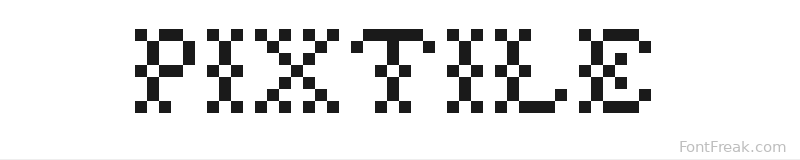
Pixtile
Pixtile by GGBot is a striking display font that captures the essence of pixel art, making it an ideal choice for projects that embrace a retro aesthetic. This unique typeface features a blocky, geometric style that is reminiscent of digital graphics, with a uniform stroke weight that provides a sense of stability and consistency. The font’s design incorporates sharp angles and a pixelated appearance, which adds a playful yet contemporary twist to traditional typography. The spacing between characters is well-balanced, ensuring legibility while maintaining the font's distinctive character.
Pixtile is particularly well-suited for a variety of creative applications. Its bold design makes it perfect for video game titles, where it can evoke nostalgia for classic 8-bit graphics. Additionally, it works wonderfully for posters and promotional materials for tech events, retro-themed parties, or digital art exhibitions. Small business owners looking to create an eye-catching brand identity can also benefit from using Pixtile in their logos and marketing collateral. Content creators, especially those focused on gaming or digital culture, will find this font invaluable for enhancing their visual storytelling.
The target audience for Pixtile includes graphic designers, small business owners, and content creators who appreciate the fusion of nostalgia and modern style. With its freeware license, the Pixtile font free download opens doors for creatives to experiment without financial constraints.
What sets Pixtile apart is its ability to evoke a sense of nostalgia while offering a fresh and modern look. Its versatility allows it to be used across various media, making it an essential addition to any designer's toolkit. Whether for digital or print, Pixtile is sure to make a memorable impact.